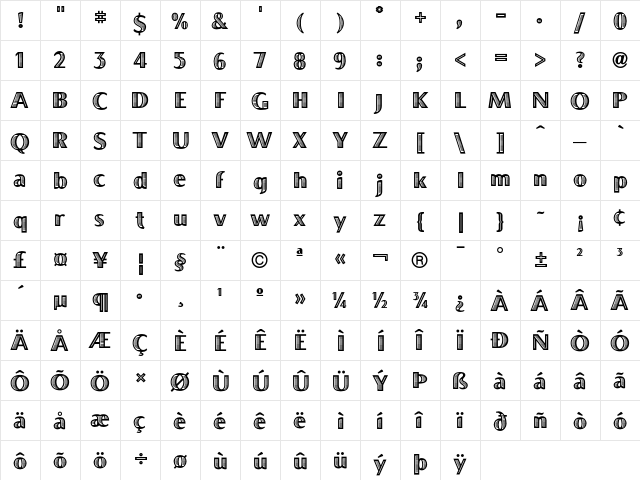
BocaRatonICG Regular
Design Context for BocaRatonICG Typeface
BocaRatonICG takes a measured approach to typography — its balanced proportions and neutral character make it a reliable workhorse for both digital and print work.